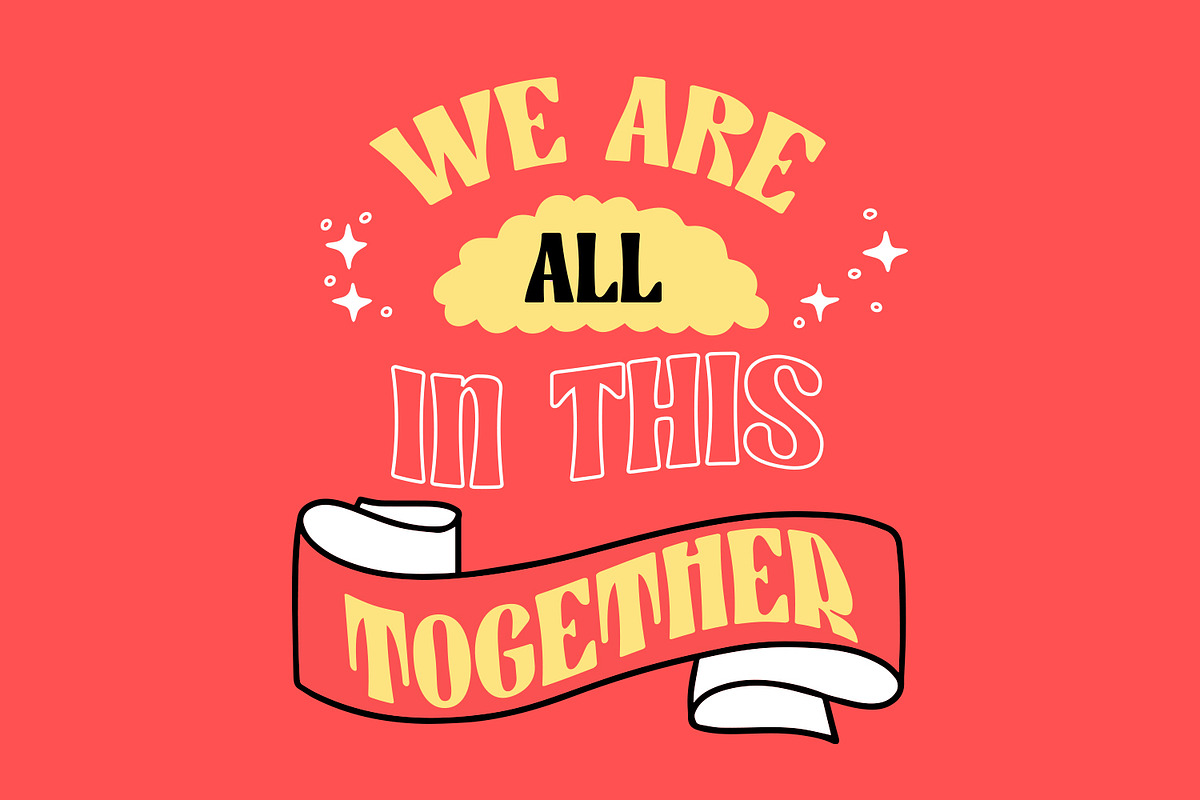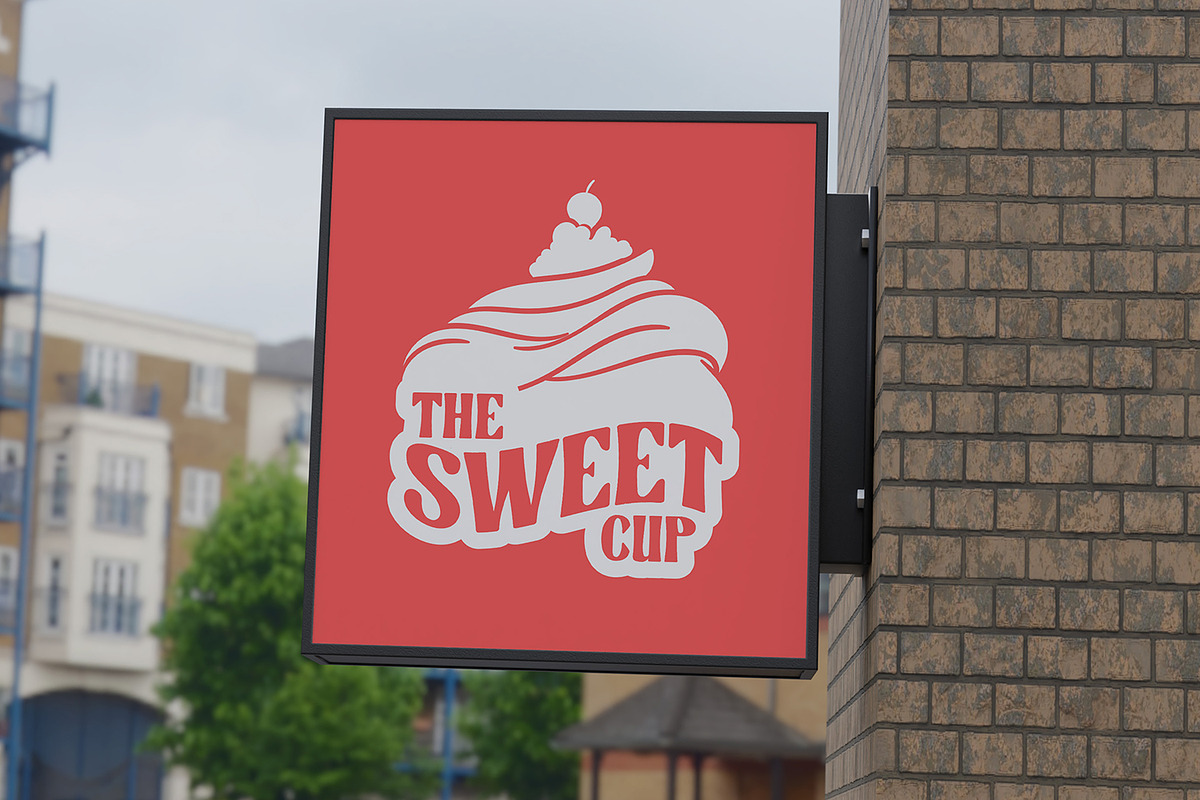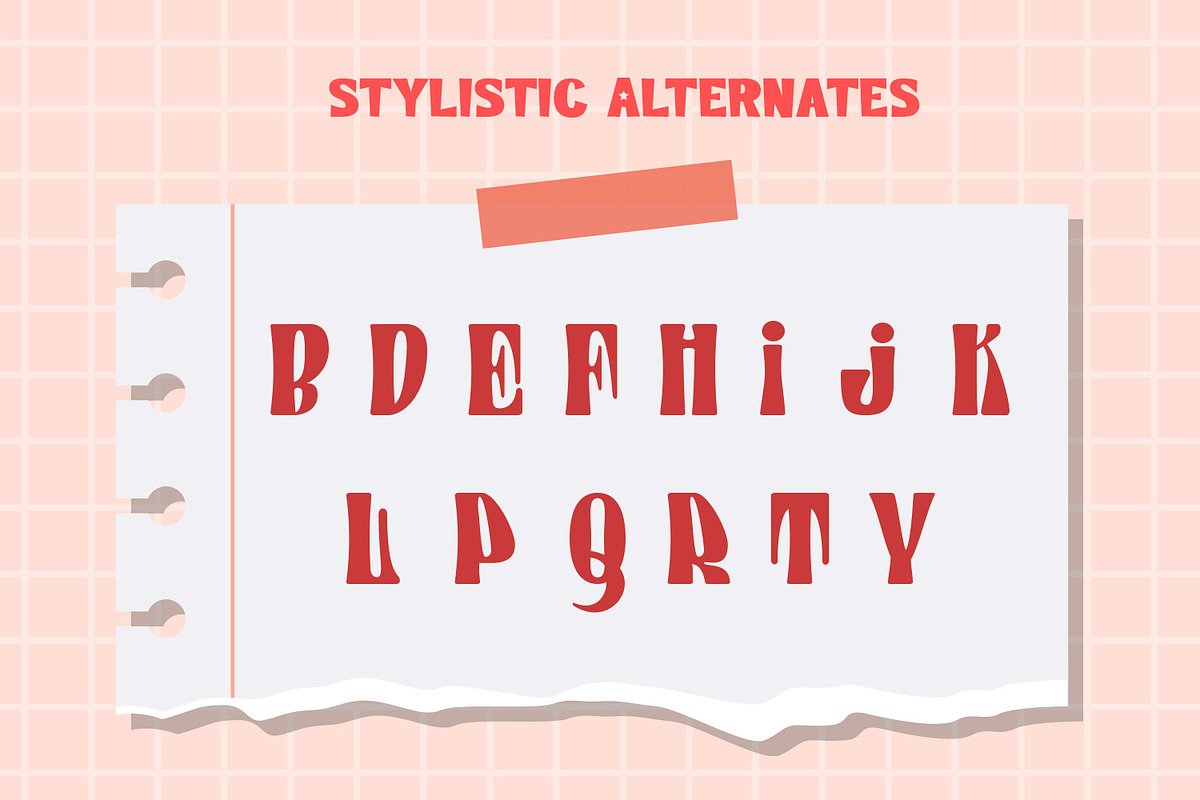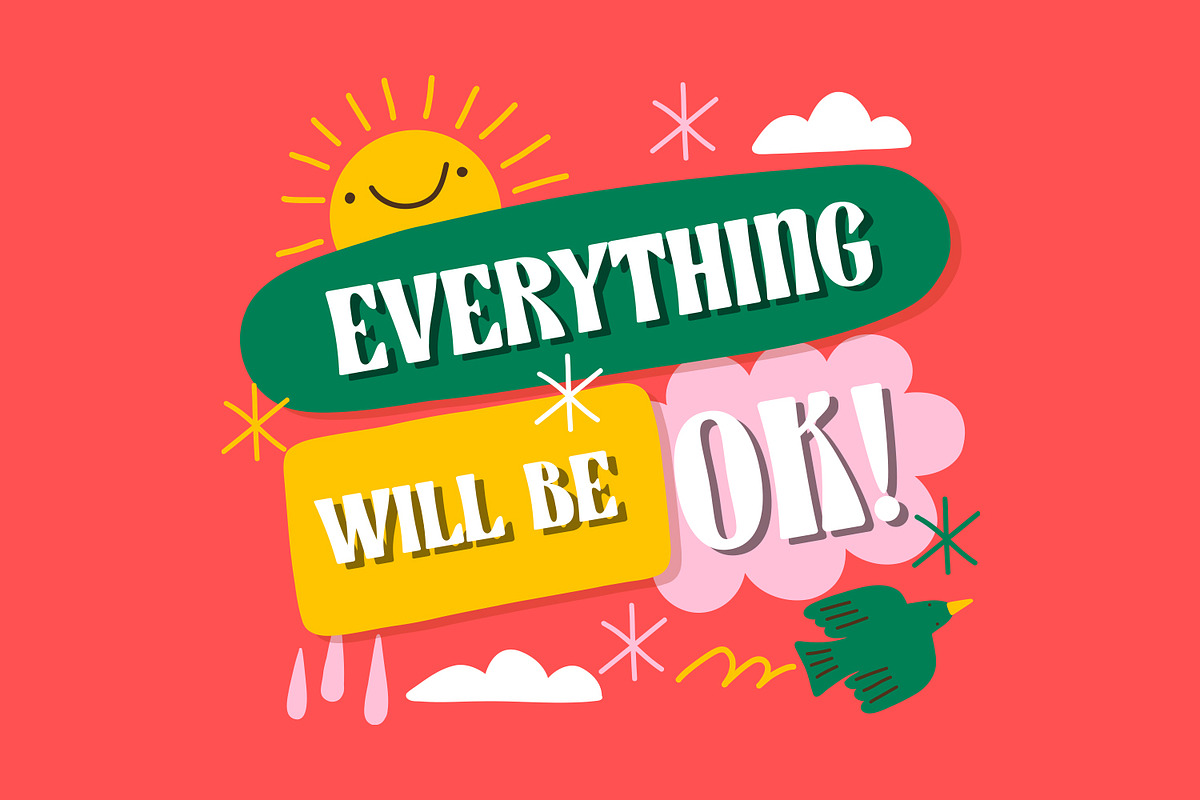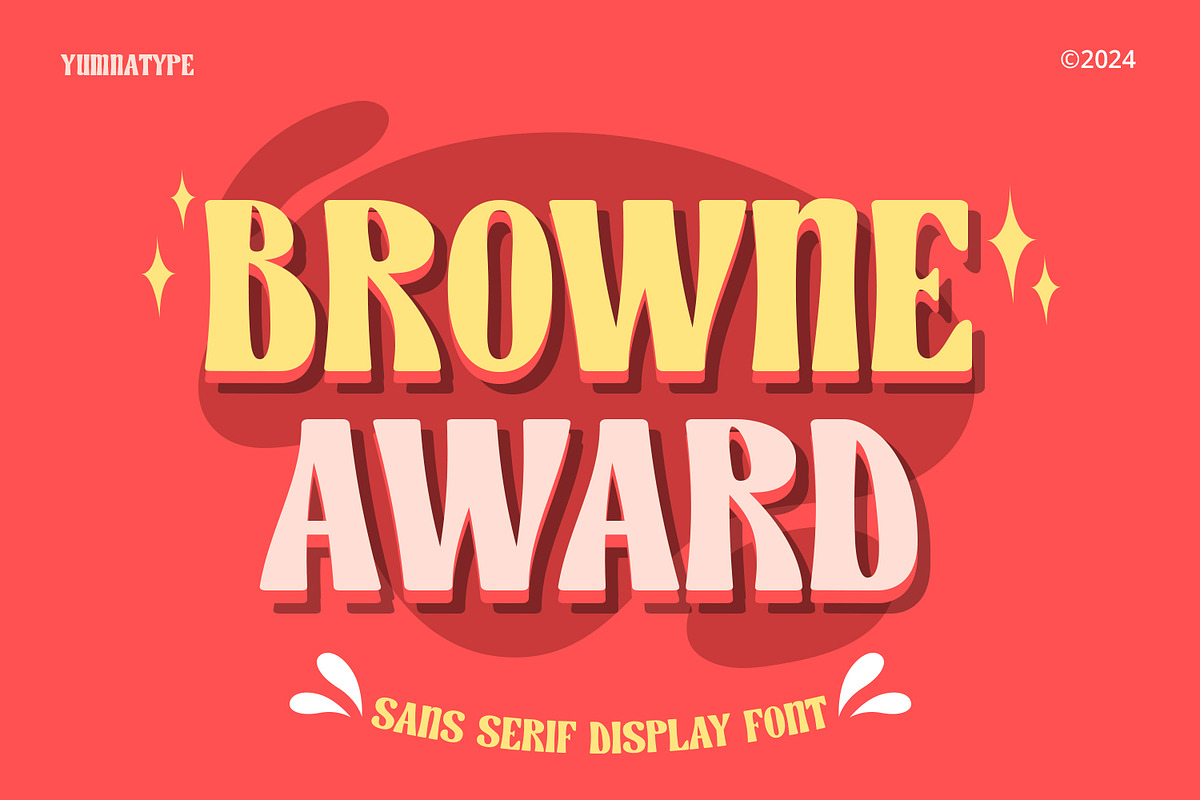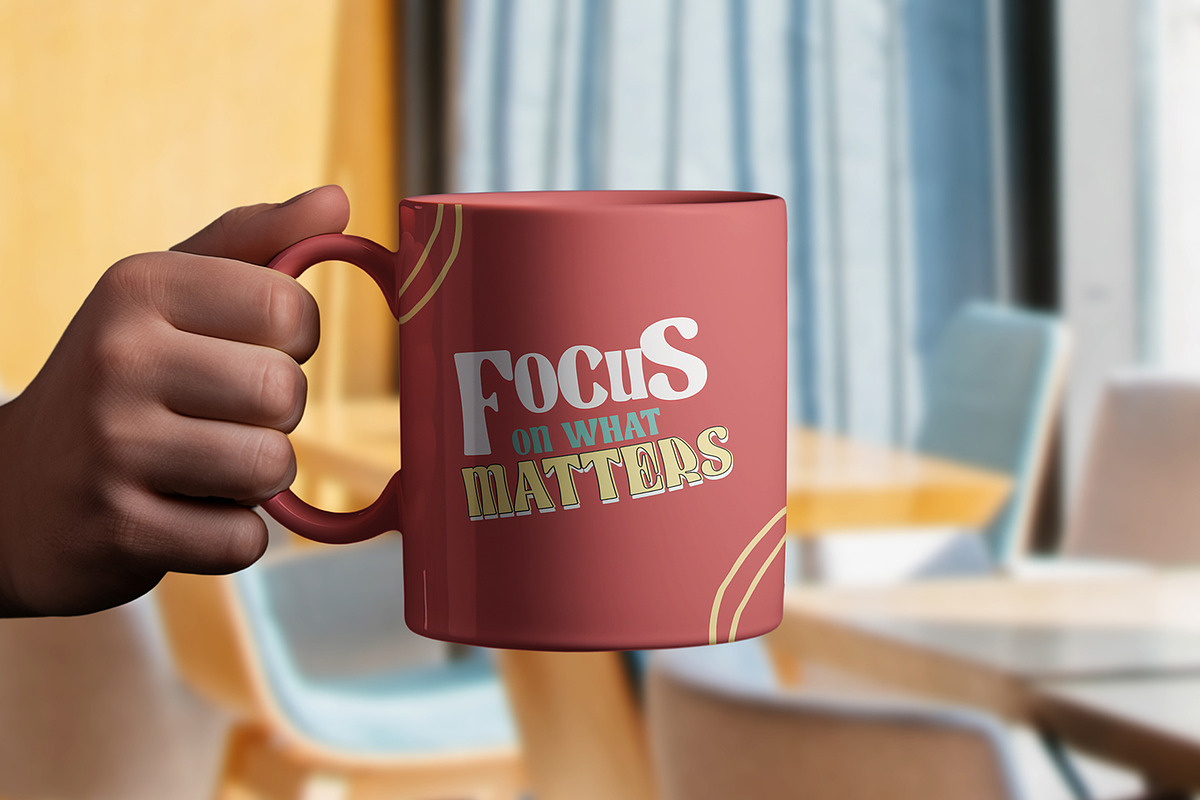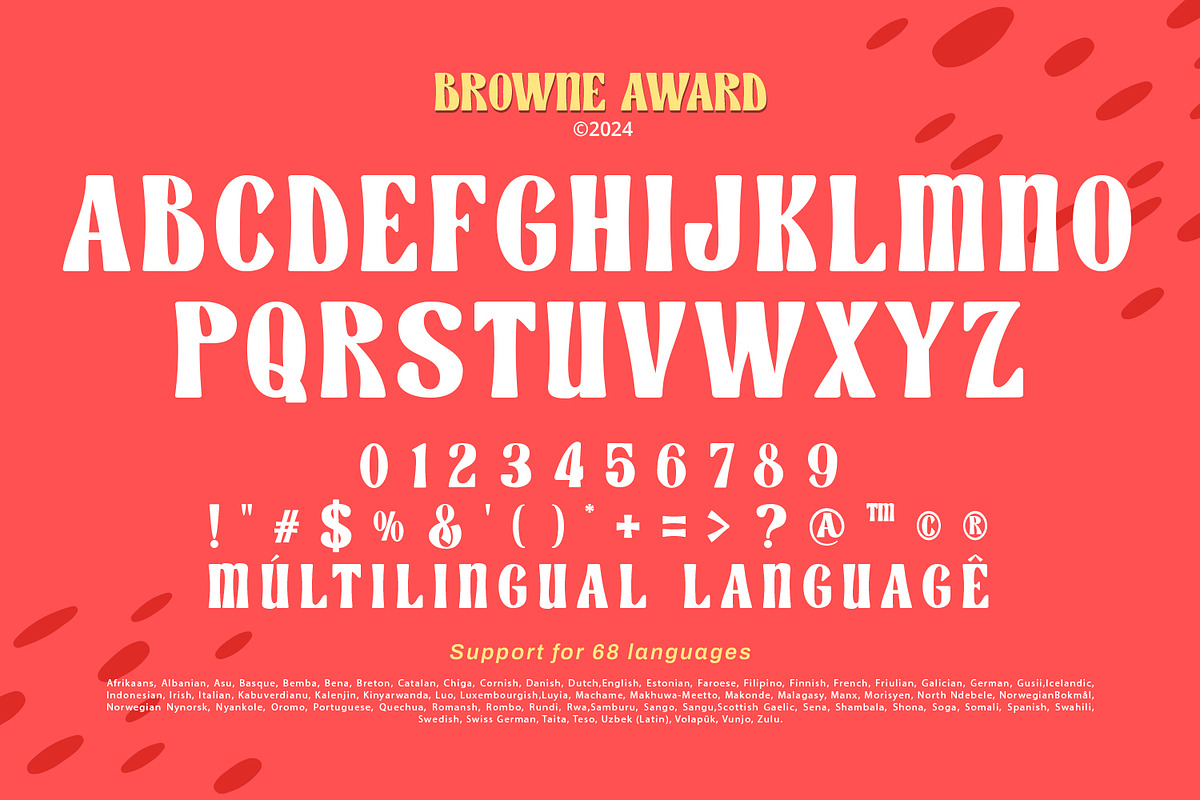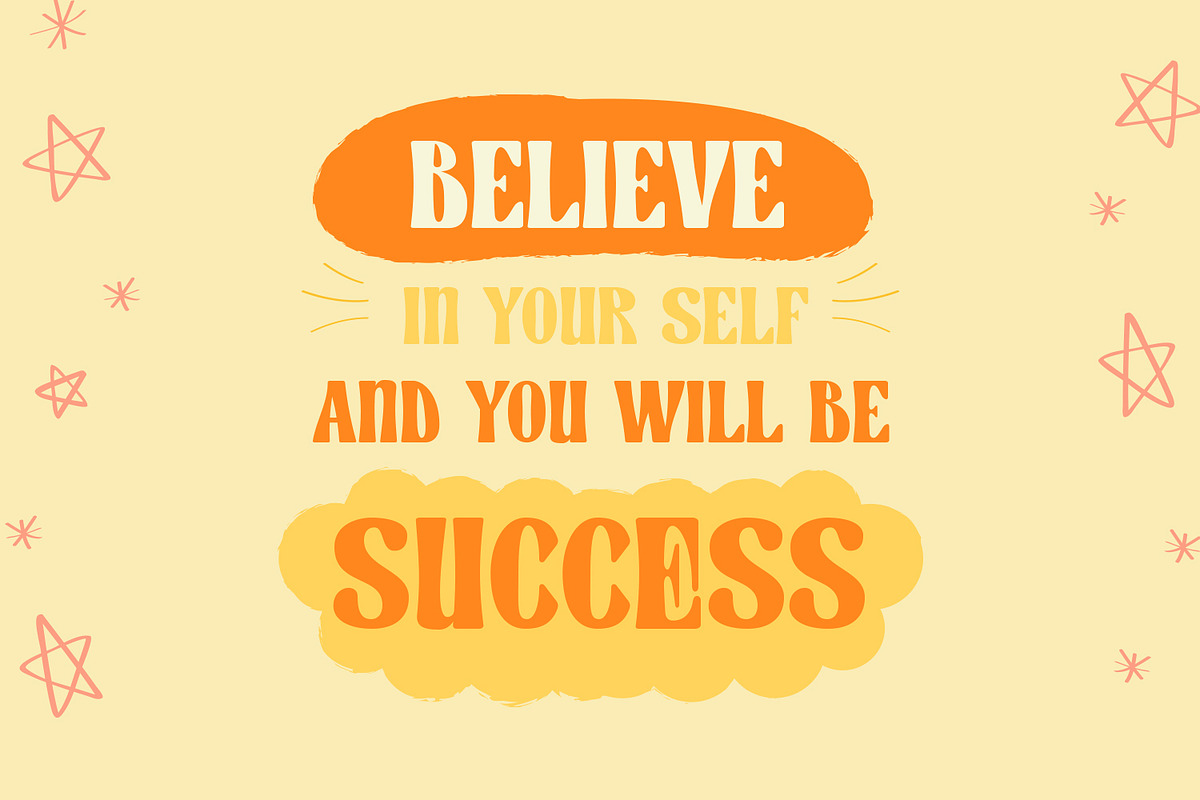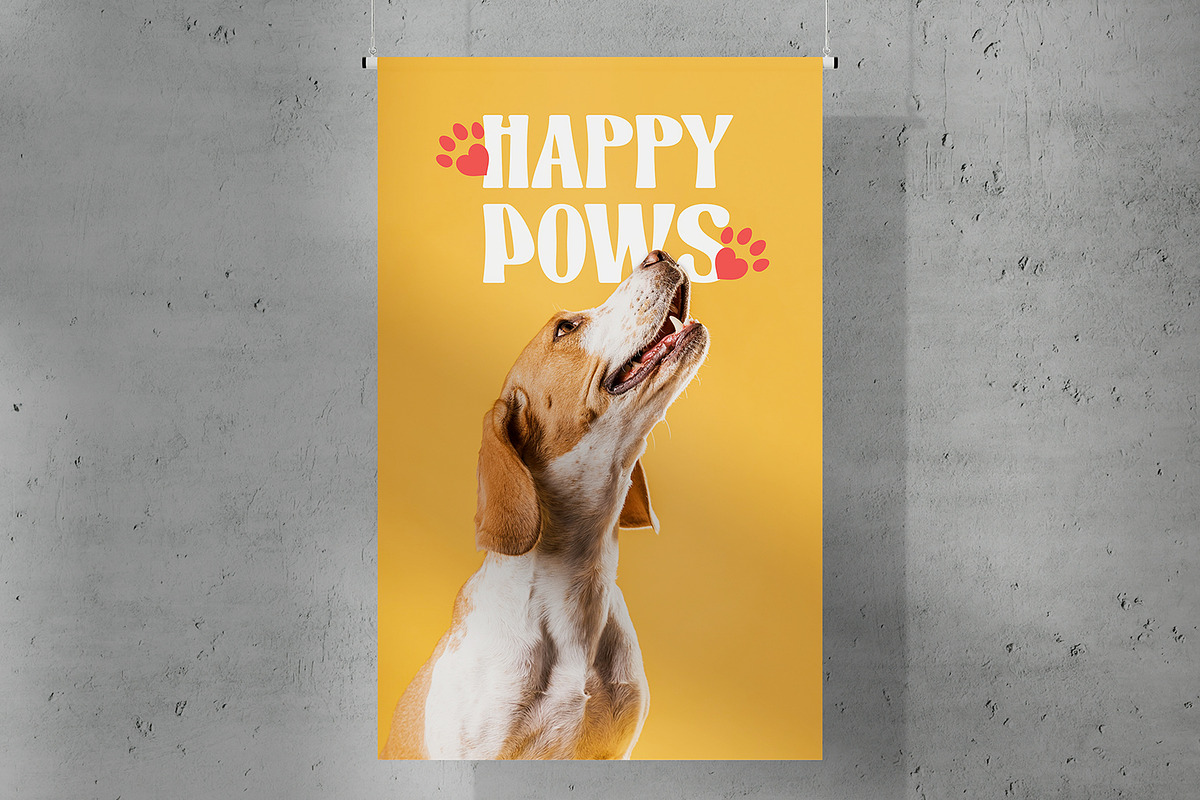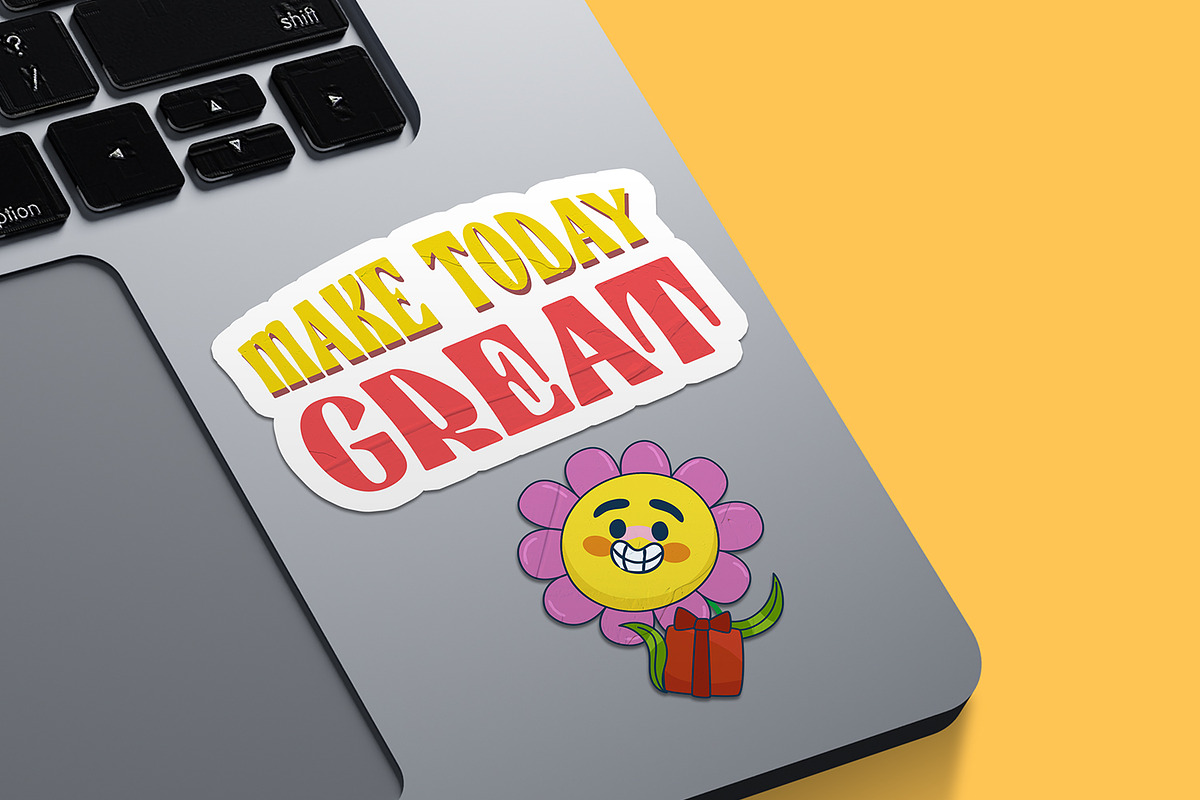
Browne Award
Browne Award is an eye-catching sans serif display font designed to make a bold impression. The bold weight of the Browne Award ensures that each letter stands out prominently. The quite visible contrast strokes adds a dynamic to the font. This contrast also enhances readability while adding visual interest, making the Browne Award both functional and aesthetically pleasing.
The rounded shapes of the letters give Browne Award a friendly and approachable feel. This softness in the design adds a touch of warmth and modernity, balancing the bold weight and contrast to create a versatile and appealing font. In addition, enjoy the features here.
Browne Award fits in headlines, logos, posters, flyers, branding materials, print media, editorial layouts, and many more designs. Find out more ways to use this font by taking a look at the font preview.